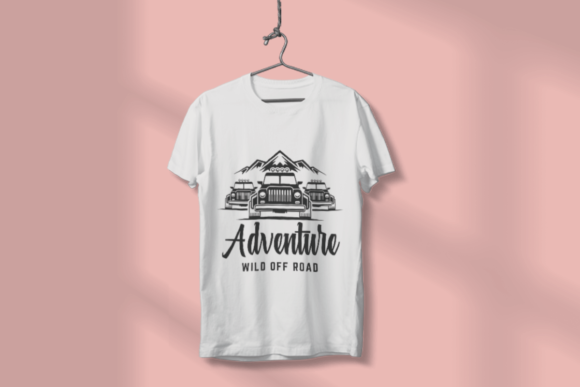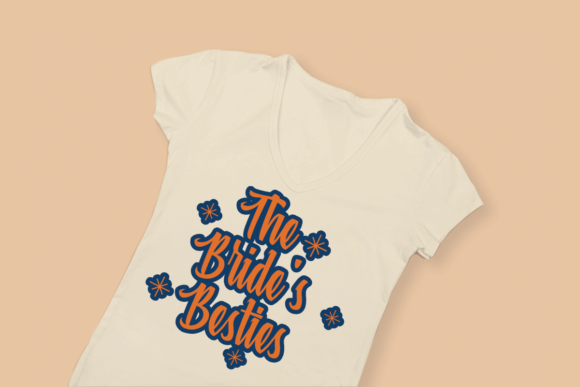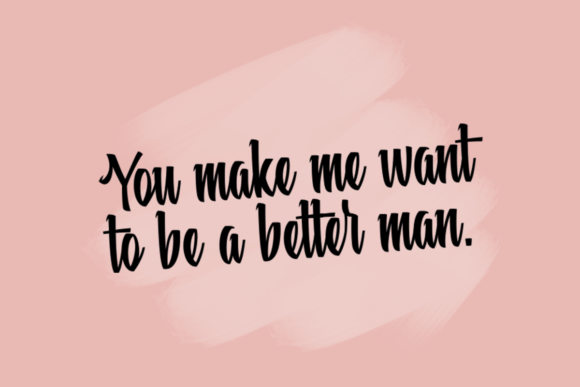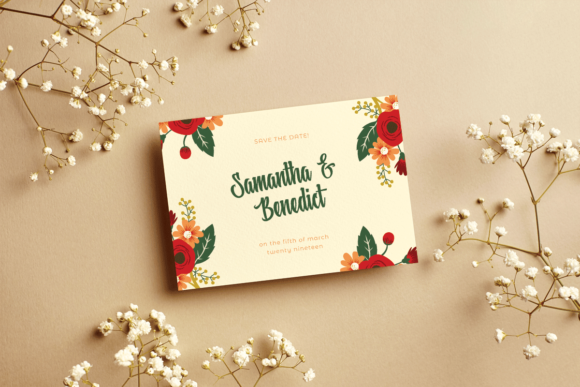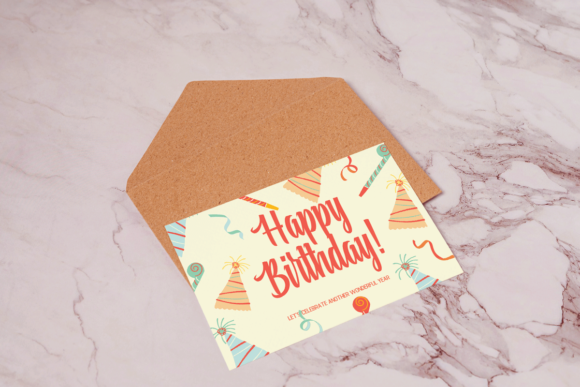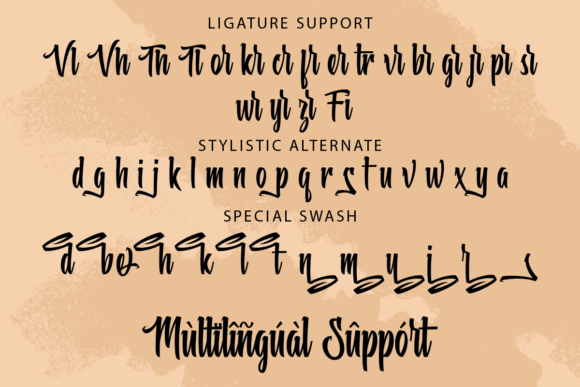
Beastic Font
About Beastic Font
“Beastic” is a font that combines boldness with a classic handwritten style, resulting in a unique and versatile typeface. With its neat and slightly quirky appearance, this font is a fantastic choice for a wide range of design projects, from quotes and logos to branding, social media graphics, apparel, greeting cards, wedding invitations, and DIY crafts.
The font’s boldness adds a strong and confident presence to your designs, making it stand out and grab the viewer’s attention. This makes “Beastic” particularly well-suited for projects where you want to make a bold statement or create an impact.
Despite its boldness, the font retains a touch of classic handwriting, giving it a human and approachable feel. The slight quirkiness adds a playful and unique element, making it suitable for a variety of creative endeavors.
The font’s versatility shines through its compatibility with various design applications. Whether you’re creating a powerful logo for a brand, crafting engaging social media posts, designing eye-catching t-shirts, or adding a personal touch to your wedding invitations, “Beastic” adapts to different contexts seamlessly.
One of the notable features of “Beastic” is its PUA (Private Use Area) encoding. This encoding enables easy access to all the glyphs and swashes that the font offers, allowing you to explore different letter variations and decorative elements effortlessly. This gives you the freedom to customize your designs and infuse your creative projects with a personal touch.
The combination of boldness, classic handwriting, and a touch of quirkiness makes “Beastic” a versatile and engaging font that can elevate your design work. Its ability to convey confidence and playfulness simultaneously ensures that it’s well-suited for a wide range of design styles and themes.
In summary, “Beastic” is a bold and classic handwritten font with a touch of quirkiness. Its versatility, combined with PUA encoding, makes it an excellent choice for creating impactful and visually engaging designs across various media and applications.